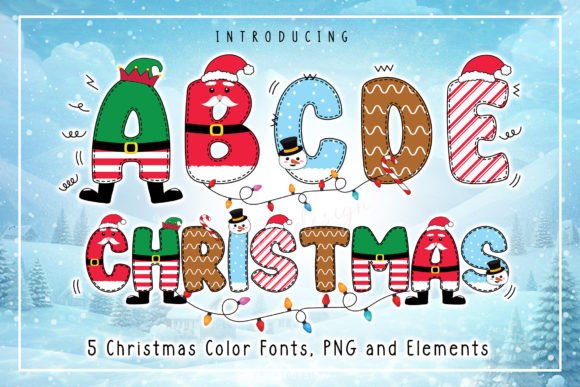
5 Christmas Bundle Color Fonts, PNG, and Elements. It will look fantastic on all your Christmas-themed designs including t-shirt designs, mug designs, digital designs, crafts, cards, and any projects! You will receive a set of 5 OTF Color Fonts and all PNG transparent files 3000px and PNG elements.